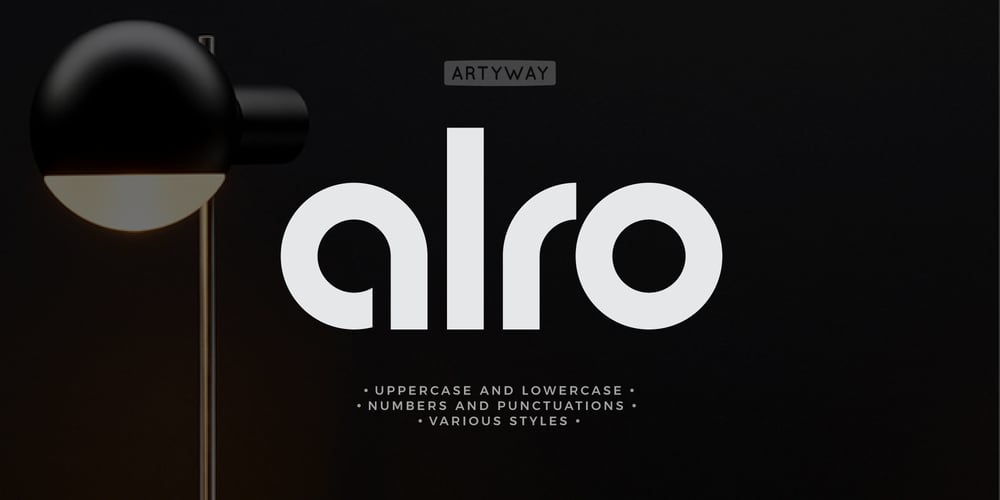
Alro Font Family was designed by Yehor Lisnyi and published by Artyway. Alro contains 2 styles and family package options. New modern font with aesthetic principles of renowned Bauhaus design school. It’s based on radically simplified forms, functionality and rationality. The embodiment of modernism, modern and authentic style.